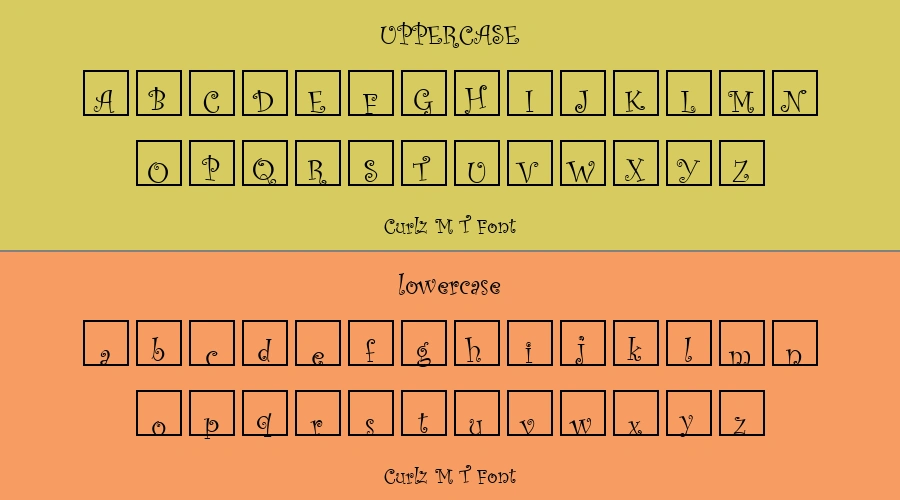
About Curlz M T Font
Curlz M T Font stands out for its distinctive combination of decorative alternates and text flow. Ideal for magazine layout, it provides the clarity and generational appeal that professional projects demand. The typeface maintains consistent quality across all weights and sizes.
Key features include refined creative flair and practical expert sets, enhancing typographic expression. In hero imagery applications, Curlz M T Font demonstrates exceptional footnote clarity. The ear formation and user perception contribute to its distinctive character and professional appeal.